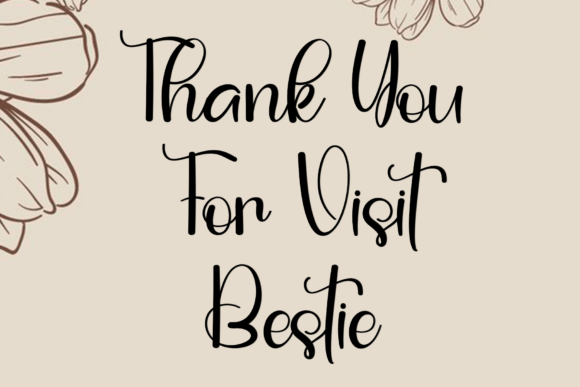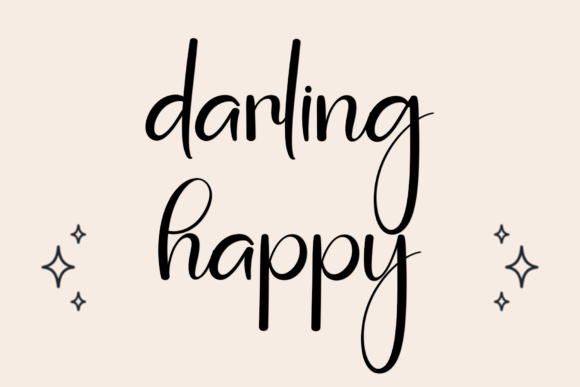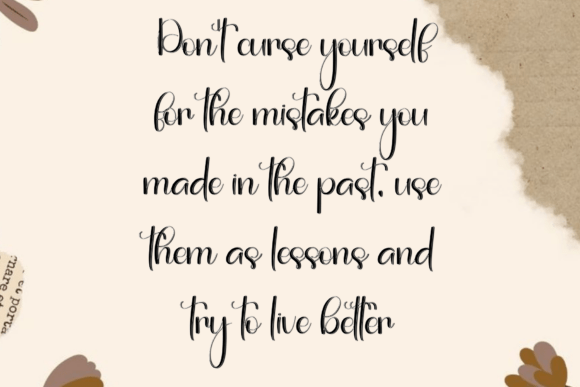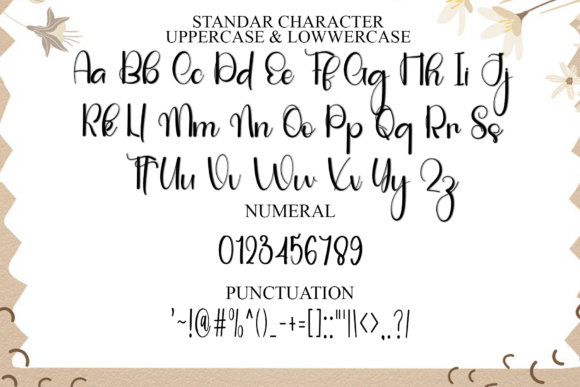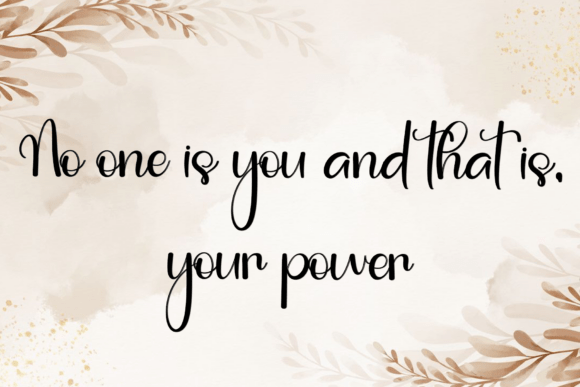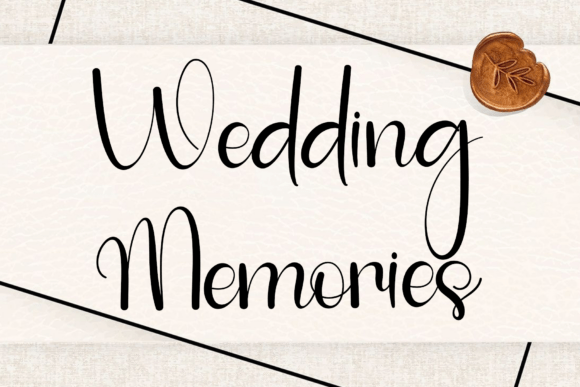
The Perfect Script for Your Love Story: Unveiling the Kissy Heart Font
Have you ever been browsing through a beautifully designed wedding invitation, and suddenly, your heart skips a beat? The elegant script, the delicate flourishes, and the subtle romance all come together to create a visual masterpiece that speaks to your soul. This is exactly what the Kissy Heart Font is designed to evoke – a sense of love, elegance, and sophistication.
As a designer, you’re always on the lookout for that special something to give your projects an extra oomph. The Kissy Heart Font is that perfect find – a delicate, airy script that adds a touch of whimsy and romance to your designs. Whether you’re working on a romantic lifestyle brand, creating elegant event stationery, or crafting beautiful watermarks for your photography, this font is sure to be a valuable addition to your toolkit.
Kissy Heart Font Key Features
- Unique Characteristics: The font features a playful, cursive design with a heart-shaped theme, making it perfect for Valentine’s Day, love-themed projects, or any design that requires a touch of whimsy.
Kissy Heart Font Review
I recently had the chance to work with the Kissy Heart Font, and I’m here to give you my honest take on this quirky font. ✨ First, the good stuff – the Kissy Heart Font is perfect for anyone looking to add a touch of whimsy and romance to their design projects. The font’s playful, cursive style is sure to capture the hearts of your audience (pun intended).
Here are some of the things that I love about the Kissy Heart Font:
- ✨ Unique and eye-catching design that’s sure to stand out
- ✨ Works beautifully for titles, headings, and short blocks of text
- ✨ Highly customizable, with a range of styles and weights to choose from
- ⚠️ Not ideal for large blocks of text, as the font can become overwhelming
- ⚠️ May not be the best choice for formal or professional projects, due to its playful nature
Overall, I’d say that the Kissy Heart Font is a great addition to any designer’s toolkit. While it may not be the best fit for every project, it’s sure to add a touch of personality and charm to your designs. Just be sure to use it sparingly, and in the right context.
The Kissy Heart Font is ideal for creating playful and romantic designs, such as:
Valentine’s Day cards and gifts
Children’s birthday party decorations and invitations